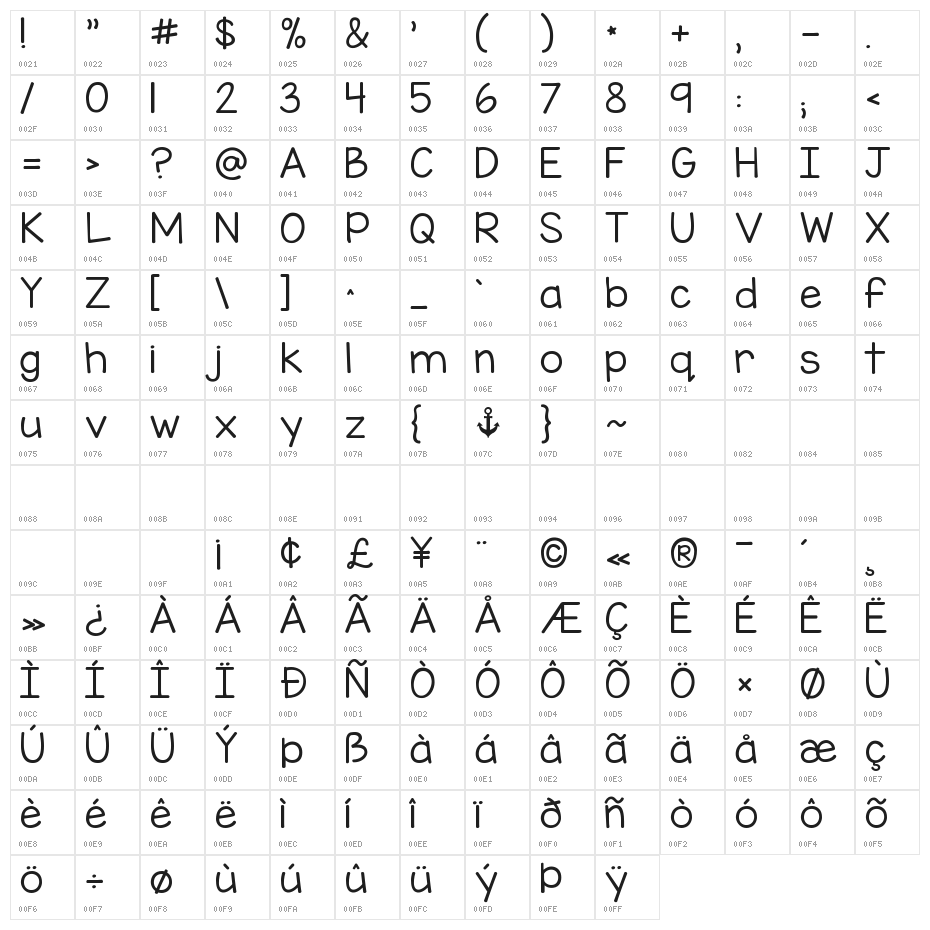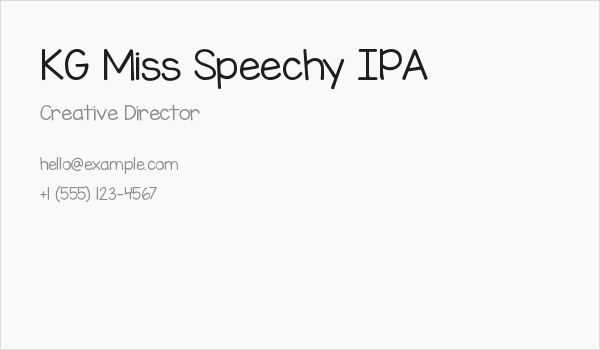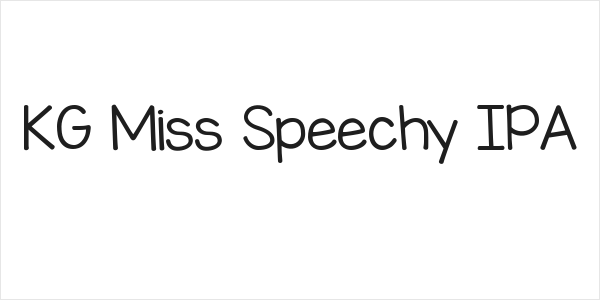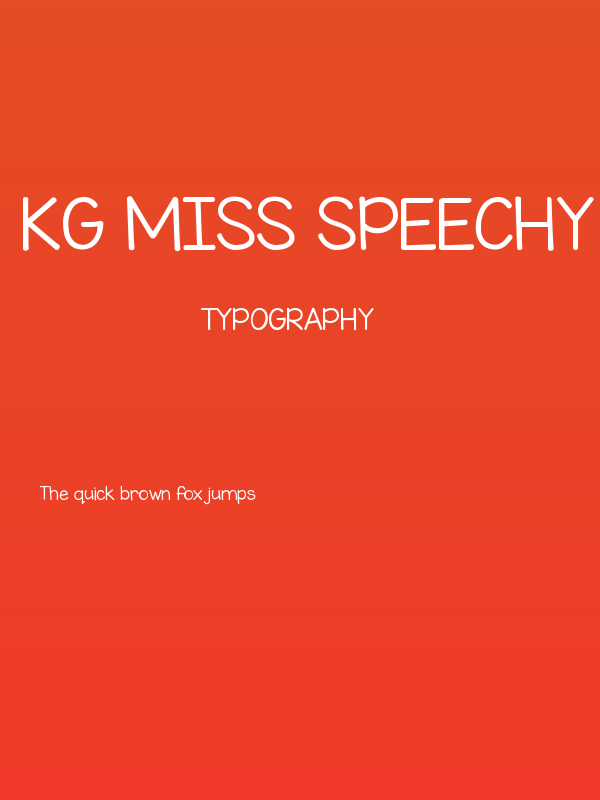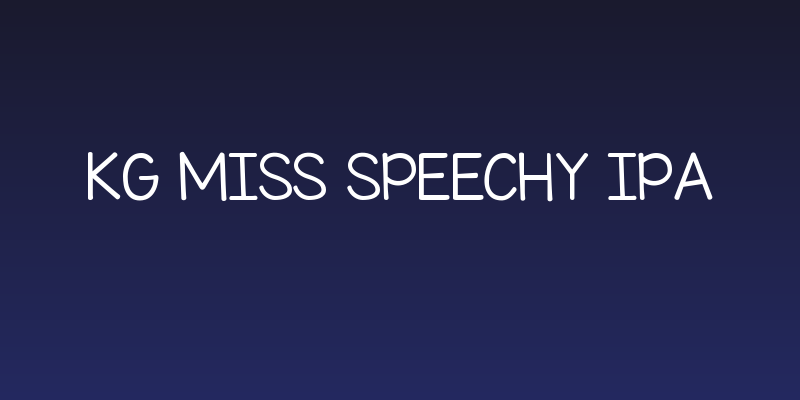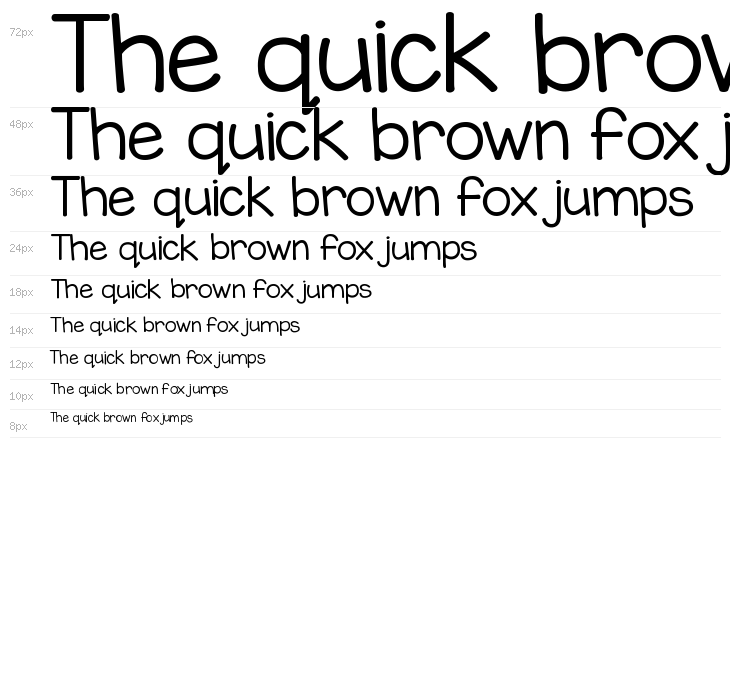
KG Miss Speechy IPA Font
KG Miss Speechy IPA Description
This playful and friendly font features rounded edges and a handwritten style that exudes warmth and approachability. The characters are evenly spaced, with a consistent stroke width that maintains readability across various sizes. Its casual and informal appearance makes it ideal for projects that require a personal touch. The font includes a full set of uppercase and lowercase letters, numerals, and a variety of special characters, ensuring versatility in design applications. Its simplicity and charm make it suitable for educational materials, children's books, and creative projects.
| Proposed Projects | Ideal for children's books, educational materials, greeting cards, and creative projects. |